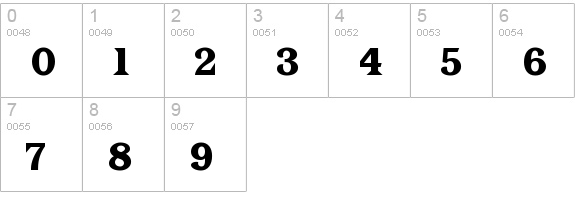
CgLatinBold Font Details
CgLatinBold uppercase A-Z preview CgLatinBold lowercase a-z preview CgLatinBold numbers 0-9 preview
CgLatinBold is a bold and eye-catching font that exudes strength and modernity. Its clean lines and distinctive design make it perfect for headlines, posters, and branding projects that require a strong visual impact. The bold weight of the font adds emphasis and ensures that your message stands out. CgLatinBold is versatile and can be used in a variety of design projects to add a touch of sophistication and style. Best of all, CgLatinBold is available for free download at FontsMarket.com. This means you can easily access this stunning font and use it in your projects without any cost. Don't miss out on the opportunity to enhance your designs with the striking beauty of CgLatinBold - download it for free today!